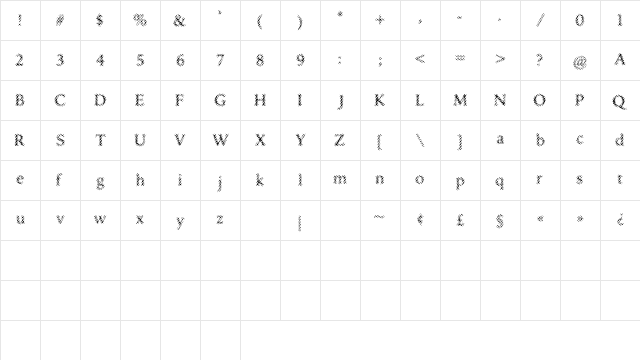
DruggedIndividualist Medium Free Font
DruggedIndividualist Medium
Design Context for DruggedIndividualist
DruggedIndividualist is a composed and adaptable typeface that performs quietly and consistently across a wide range of design contexts.
Pro Tip: Use DruggedIndividualist in both headline and body roles to test its range before committing to a single application.